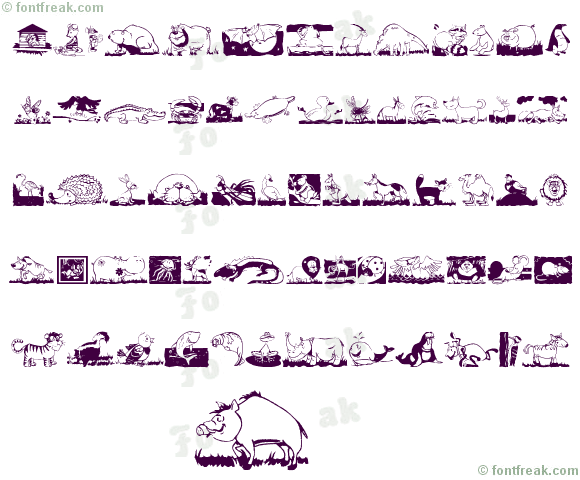
ChildrenAnimalsFriends
The ChildrenAnimalsFriends font by Manfred Klein is a delightful decorative typeface that brings a playful and whimsical flair to any project. Designed with children in mind, this font features a unique collection of animal illustrations intertwined with friendly characters, making it an excellent choice for designs aimed at a younger audience. Its visual characteristics include a consistent stroke weight that maintains readability while showcasing charming details, such as the quirky expressions and postures of the animals depicted. The spacing is well-balanced, ensuring that each character is distinct yet cohesive, creating a fun and engaging visual experience.
This font is particularly well-suited for a variety of applications. It shines in children's book covers, where its playful illustrations can captivate young readers. Additionally, it serves as a fantastic choice for school projects and educational materials, providing a friendly and inviting aesthetic. Event invitations for children's parties can also benefit from this font, as it adds a cheerful touch to the overall design. Furthermore, small businesses, such as toy stores or children's boutiques, can leverage the ChildrenAnimalsFriends font to create eye-catching signage and promotional materials that resonate with their target audience.
Graphic designers and content creators will find the ChildrenAnimalsFriends font free download an invaluable resource for infusing creativity into their work. This font stands out due to its unique combination of typography and illustration, making it a versatile tool for conveying joy and imagination in various contexts. Its ability to connect with children and evoke a sense of wonder ensures that any project using this font will leave a lasting impression.